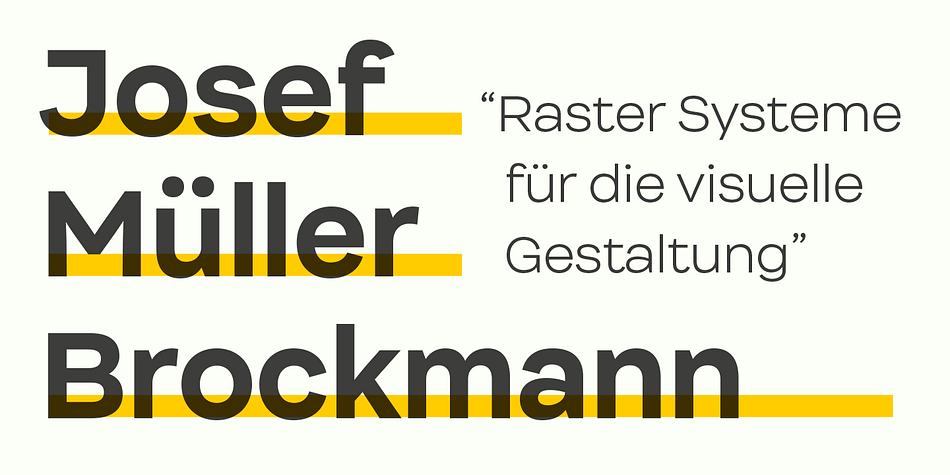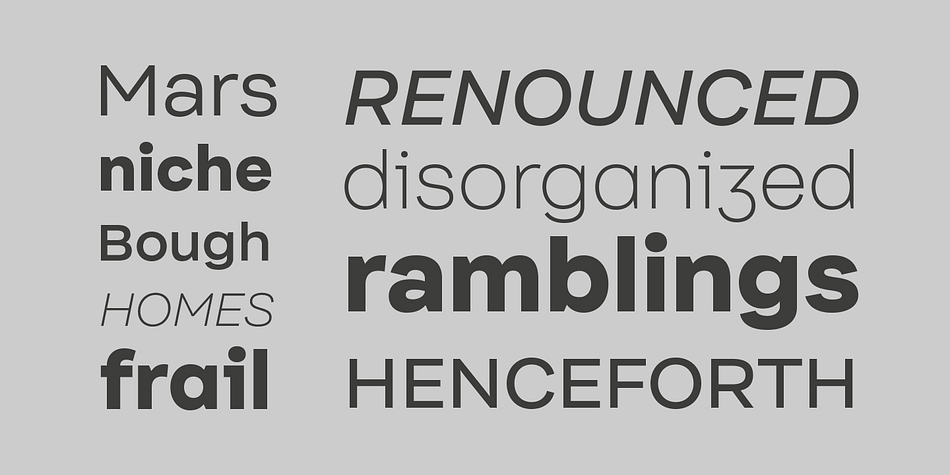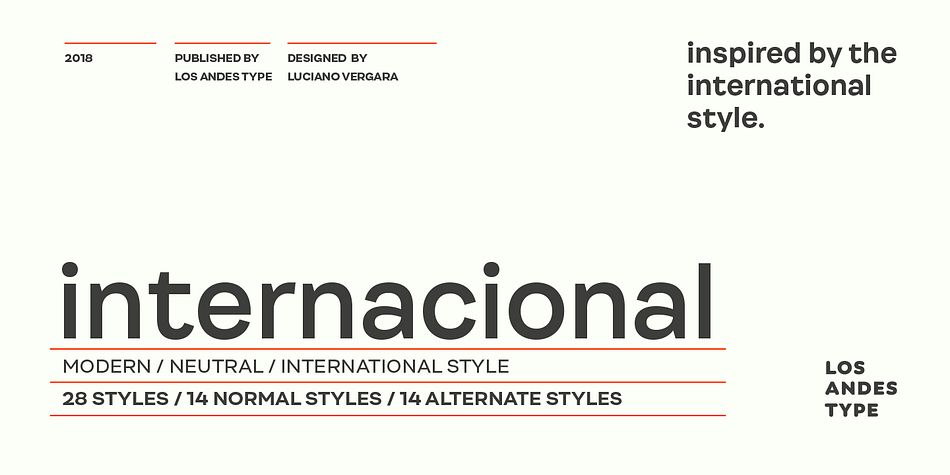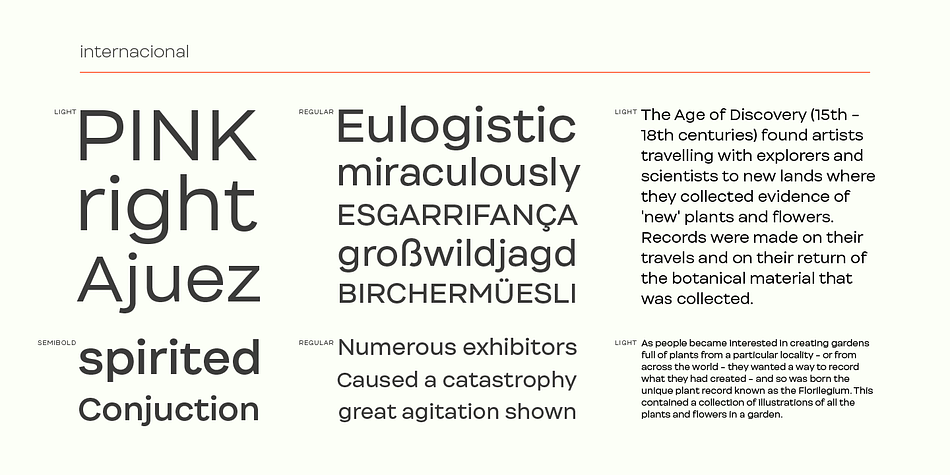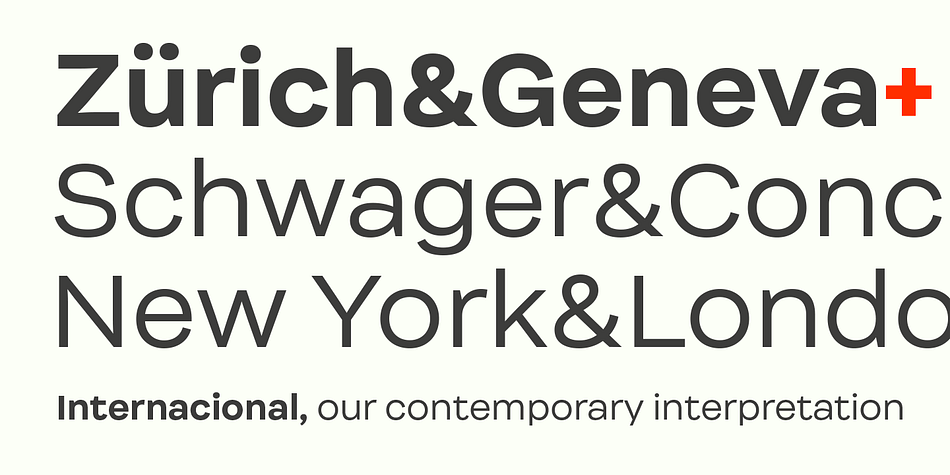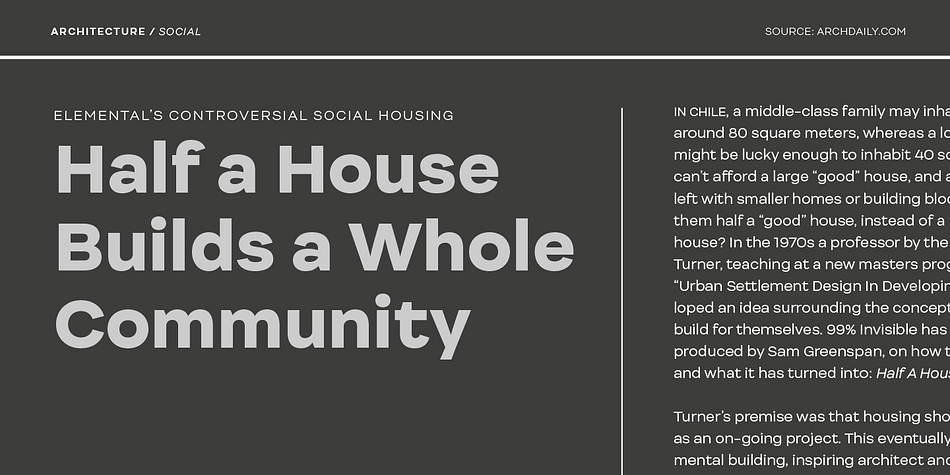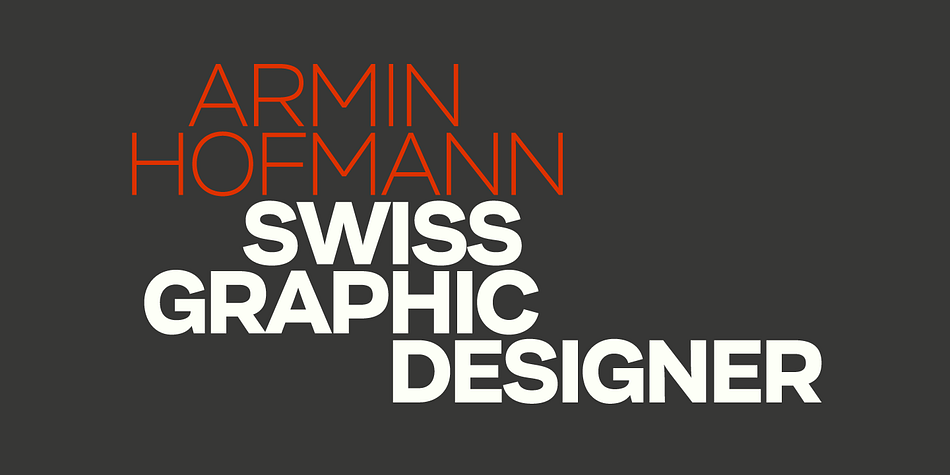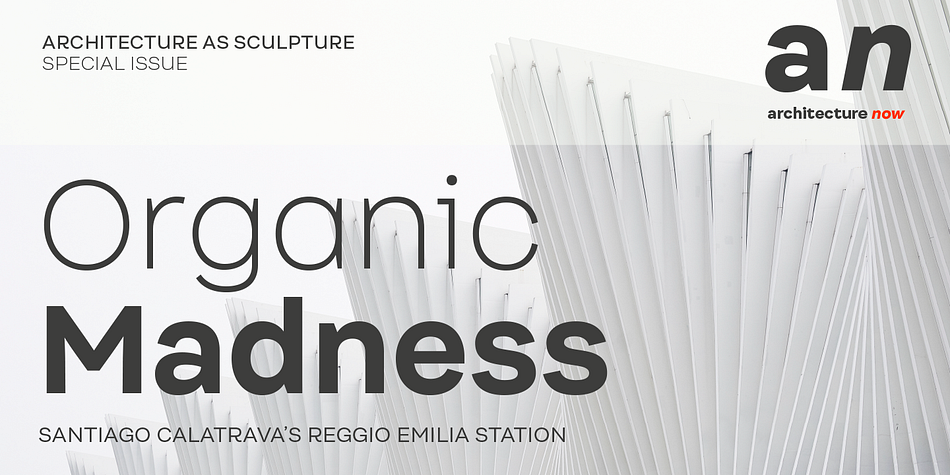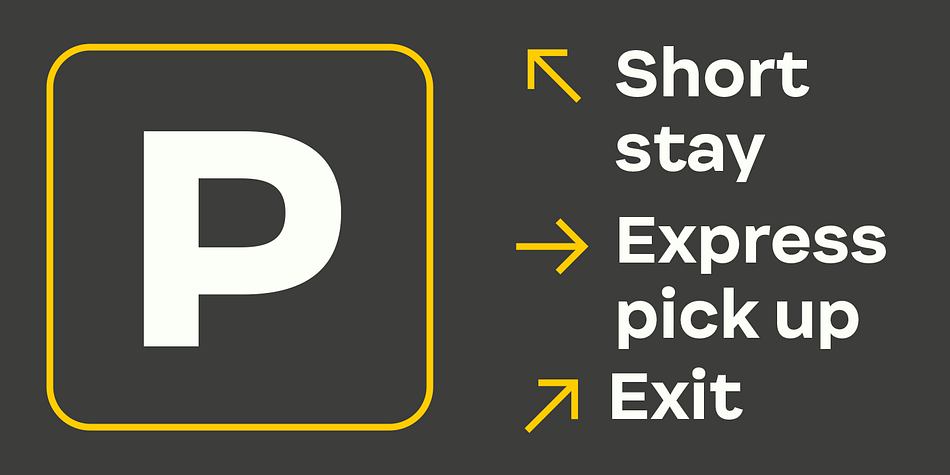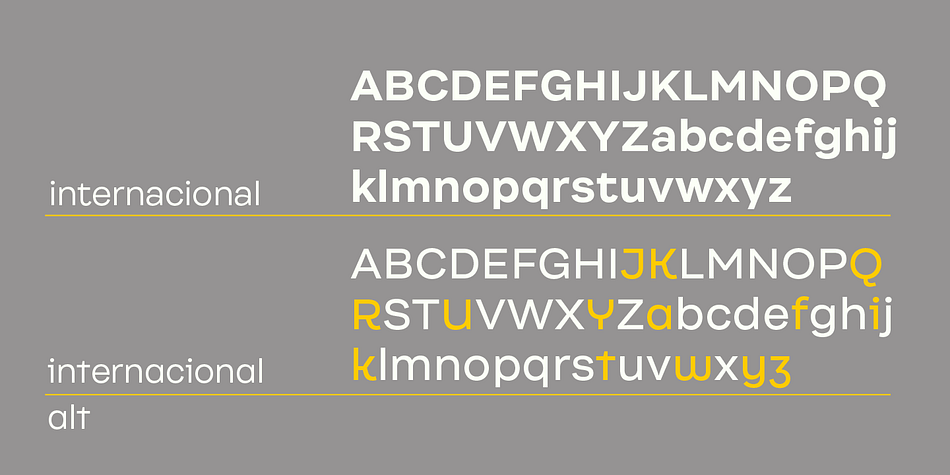
Designed by Luciano Vergara, Internacional is a sans serif font family. This typeface has twenty-eight styles and was published by Los Andes Type.
A twenty-eight font family. This contains every font in the Internacional Family.
Internacional, inspired by the International Style, is a Latin American-flavored neo-grotesque sans serif typeface made with organic ingredients and sweetened with organic sugar and chocolate.
Internacional is well-suited for corporate identity, branding, publishing projects, logotypes, magazines and advertising.
Its large x-height and small difference between x-height and cap-height make it a high-impact font, ideal for powerful headings, while providing legibility. Internacional was designed for use with short and mid-length paragraphs that require a balanced type color. Internacional is an extended width font with rounded forms and angled terminal ends, in characters such as “c” or “a”, which make it suitable for use in advertising and branding. The proportional relation in height between uppercase and lowercase letters may be useful when composing text in German language.
The Internacional font family comes in 7 weights with matching italics and includes an alternative version, with the same number of styles, yet it tastes differently.